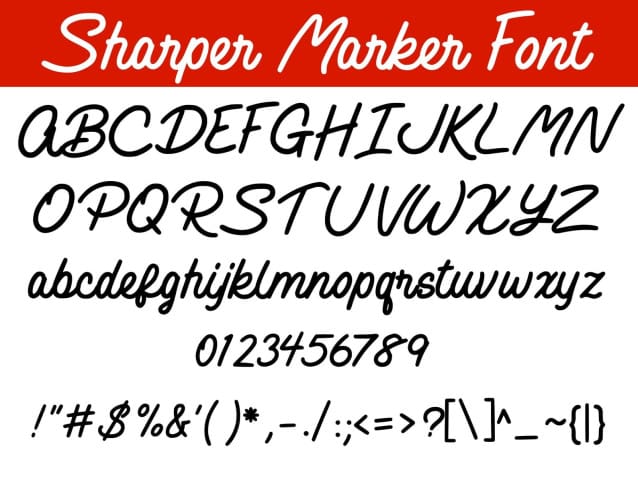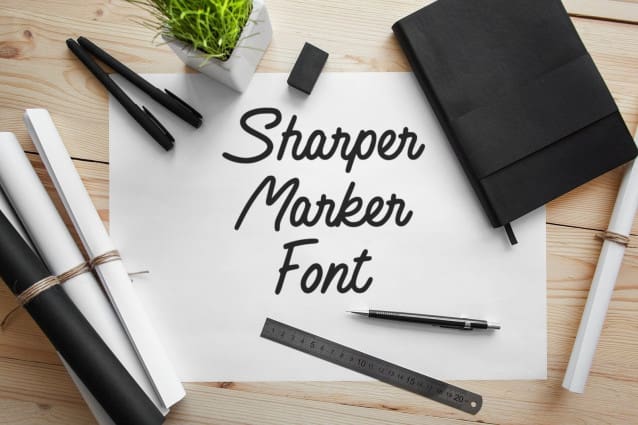
Sharper Marker Font
Sharper Marker Font is a font that I made that is perfect for T-shirts, blogs, YouTube channels, websites, cards, scrapbooking, wall decor, stickers, decals, and so much more.
This font was created in Adobe Illustrator with my iPad Pro after I drew the letters on paper and scanned them in.